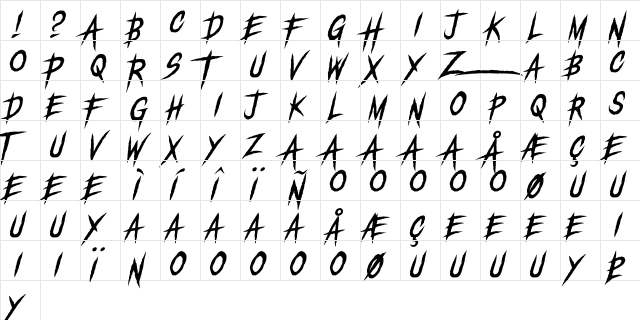
Earthen Parasite Slant DEMO Regular
Design Context for Earthen Parasite Slant DEMO Typeface
Earthen Parasite Slant DEMO is a composed and adaptable typeface that performs quietly and consistently across a wide range of design contexts.